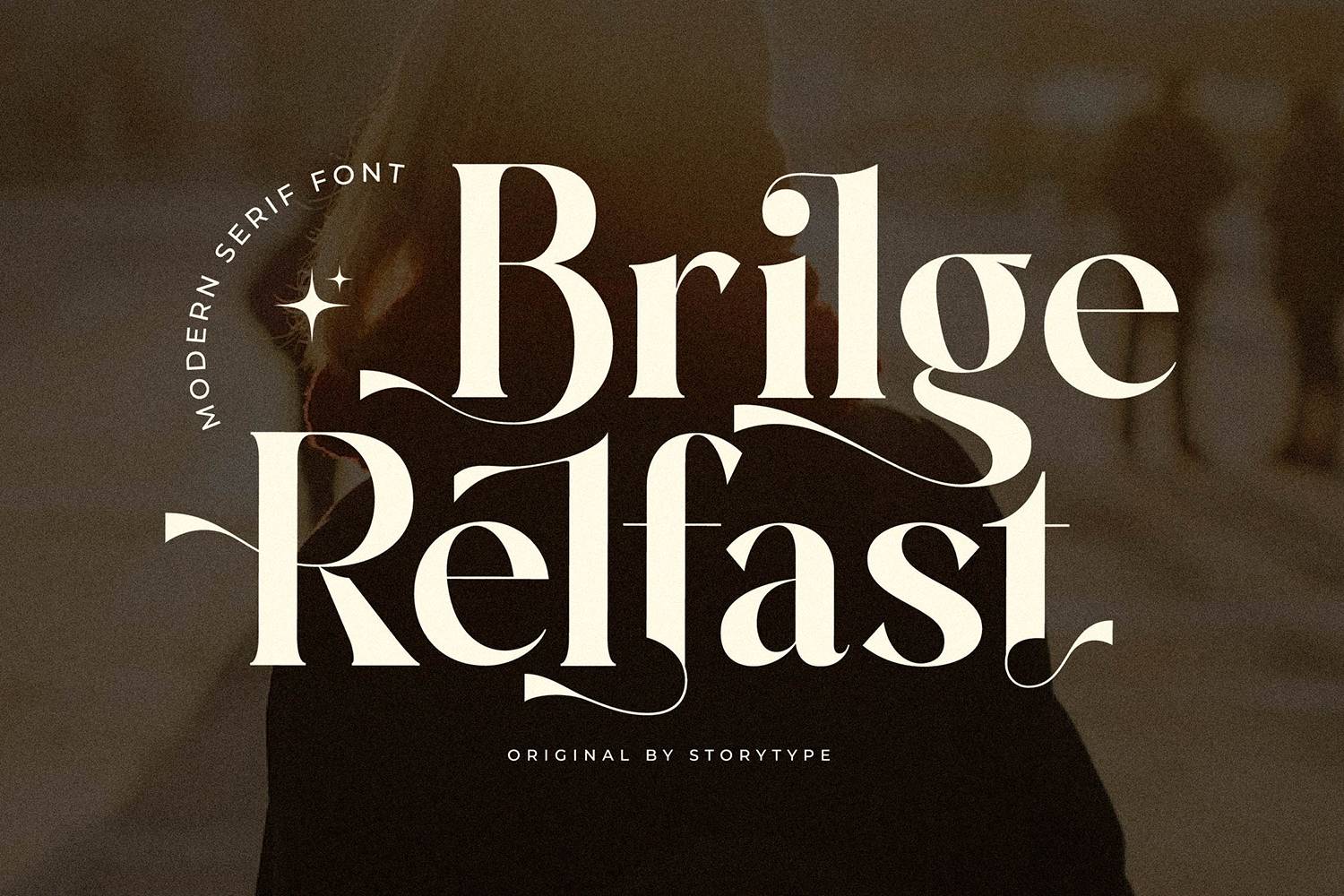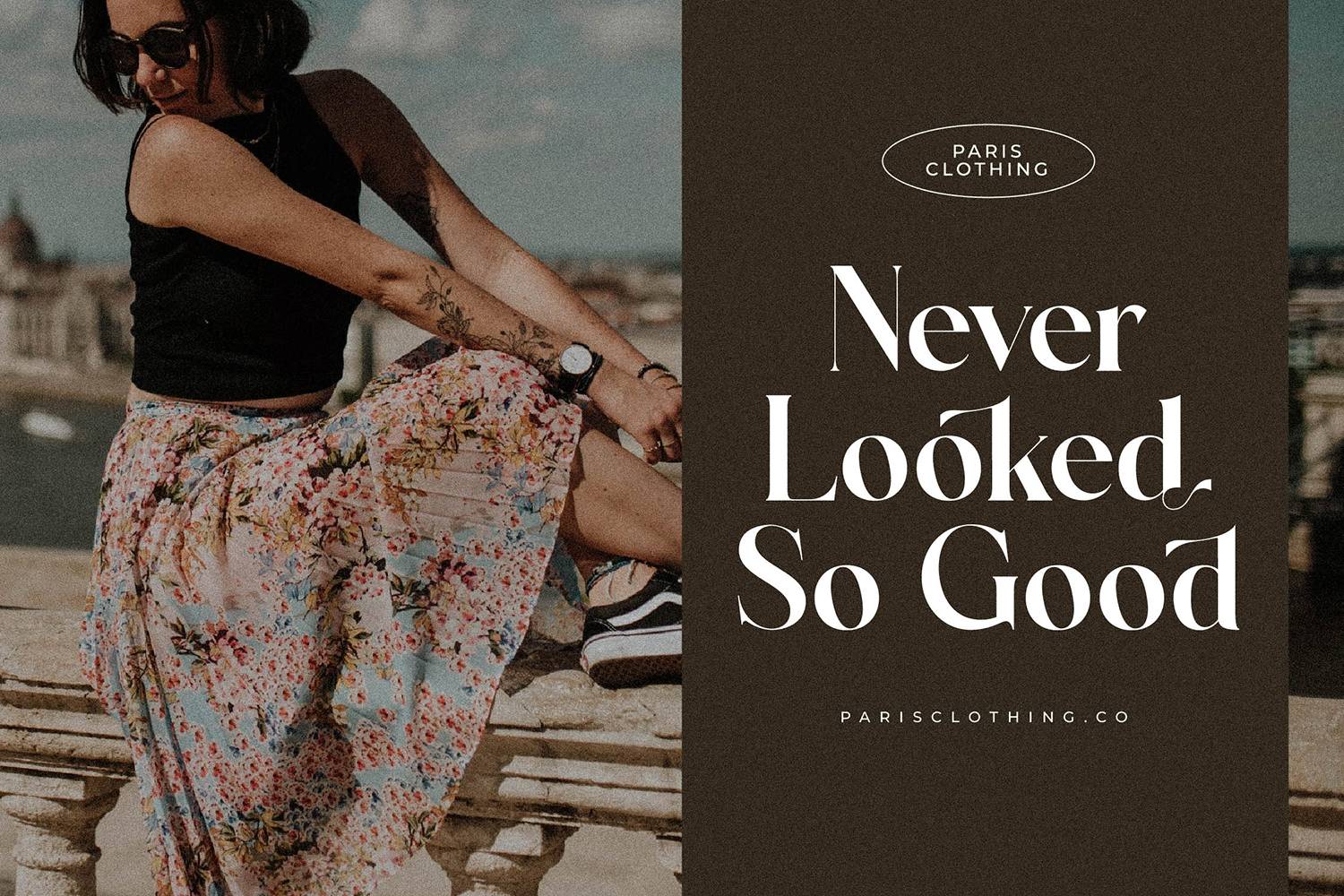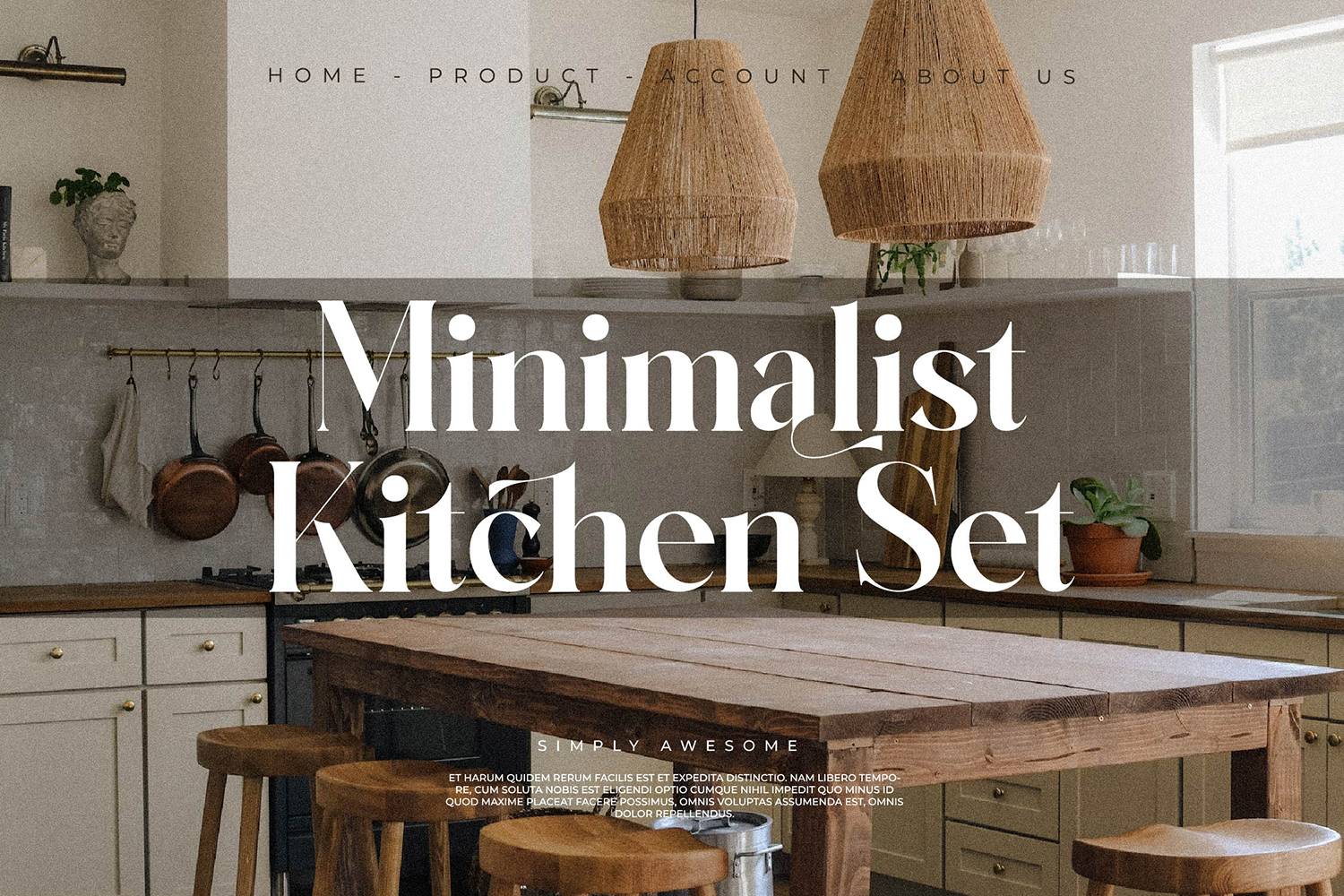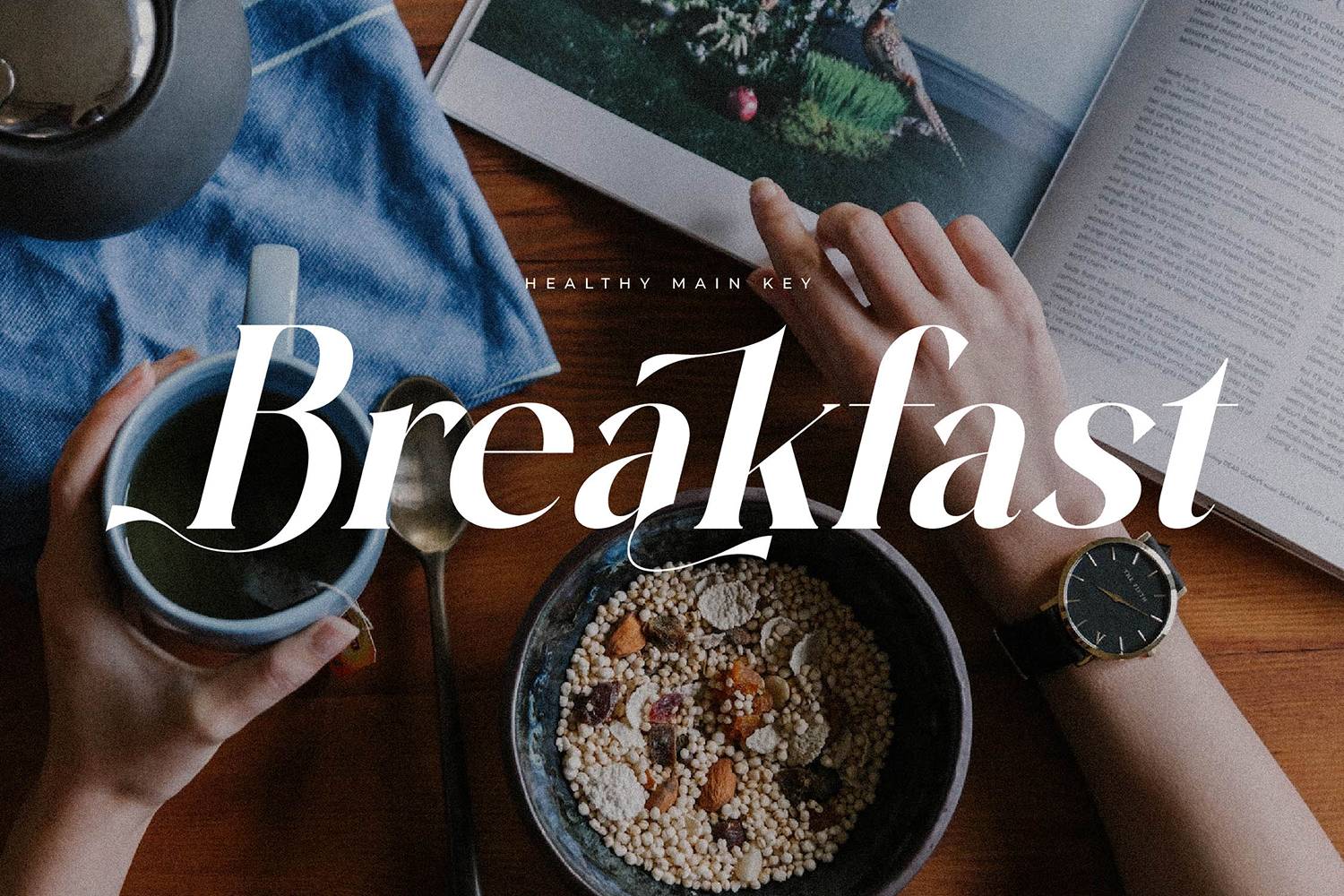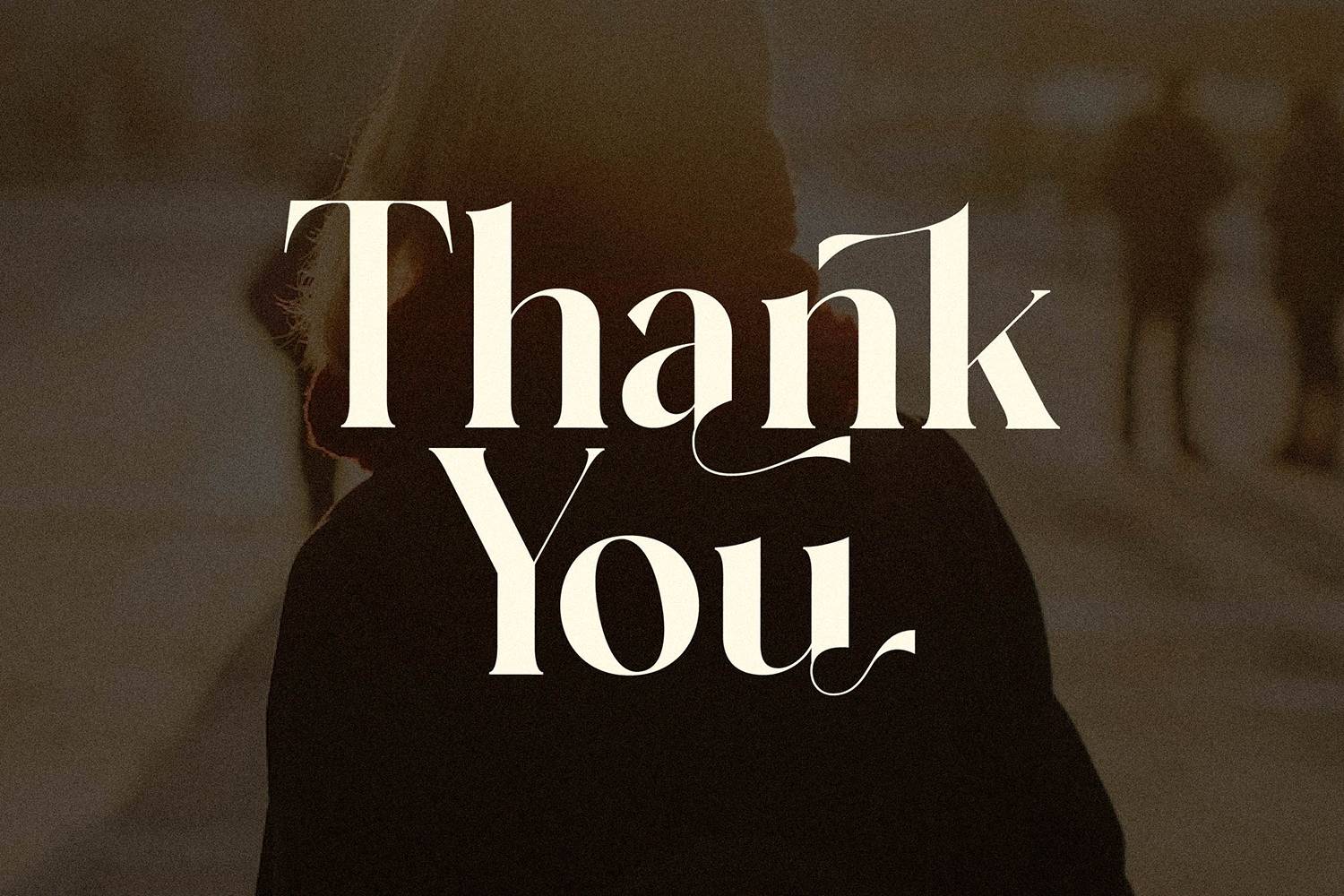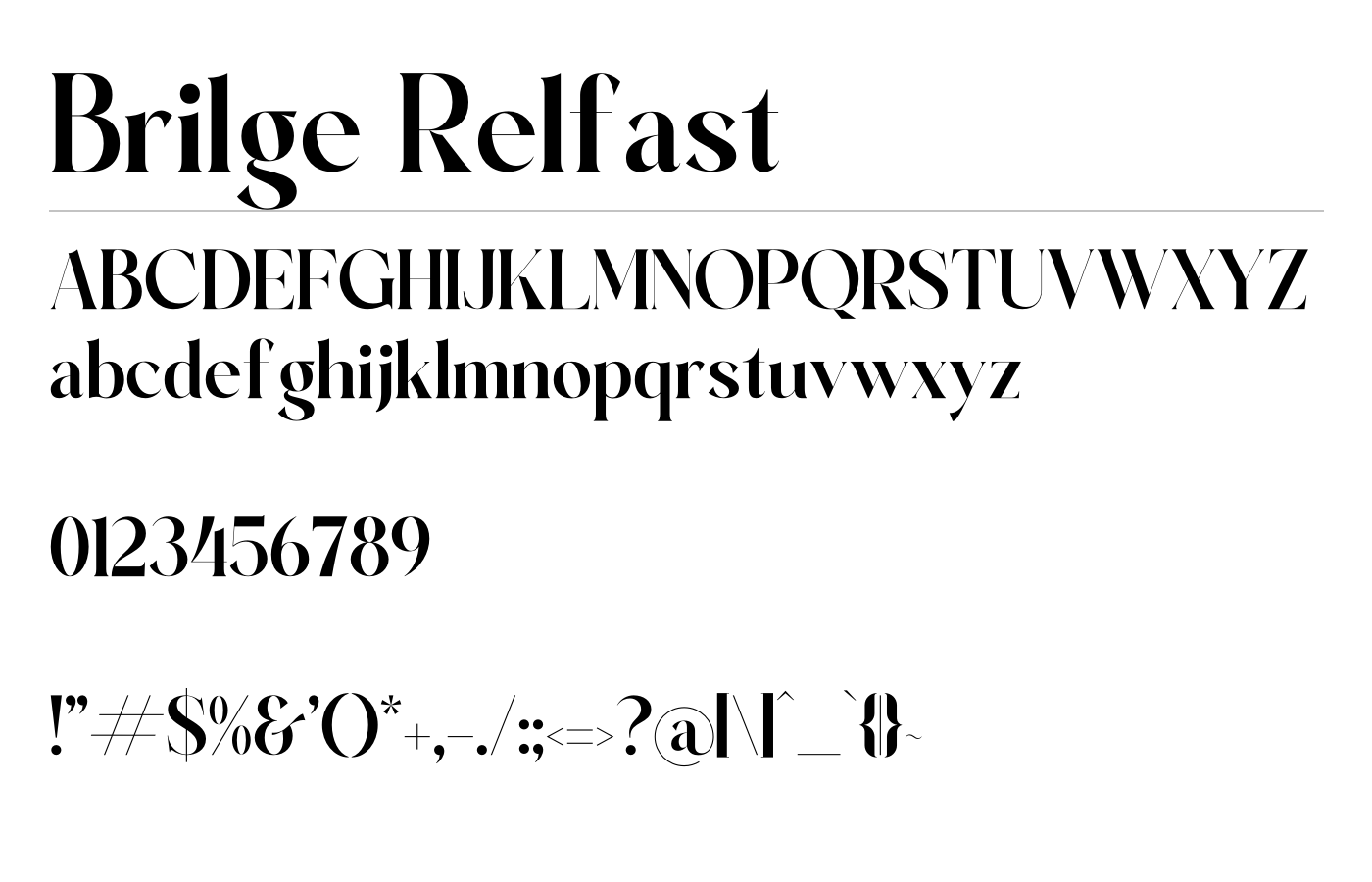
Brilge Relfast is a refined serif font characterized by high contrast between thick and thin strokes and elegant, sharp serifs with delicate brackets. Its tall, narrow letterforms and distinctive details, like the single-story ‘g’ and stylish ampersand, lend it a sophisticated, modern luxury feel ideal for fashion branding, editorial headlines, and upscale packaging. This font's refined personality and crisp structure make it perfect for designs aiming to evoke elegance and exclusivity.
Brilge Relfast Font
About Brilge Relfast Font